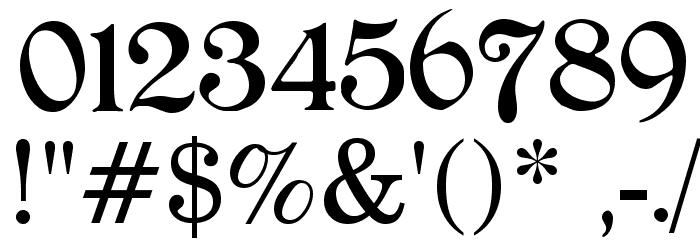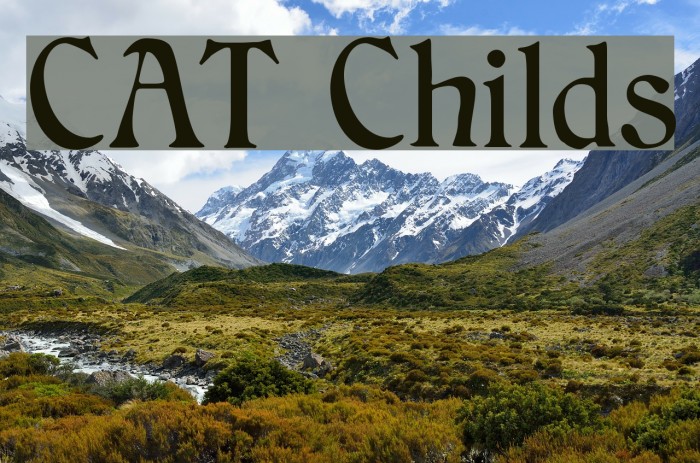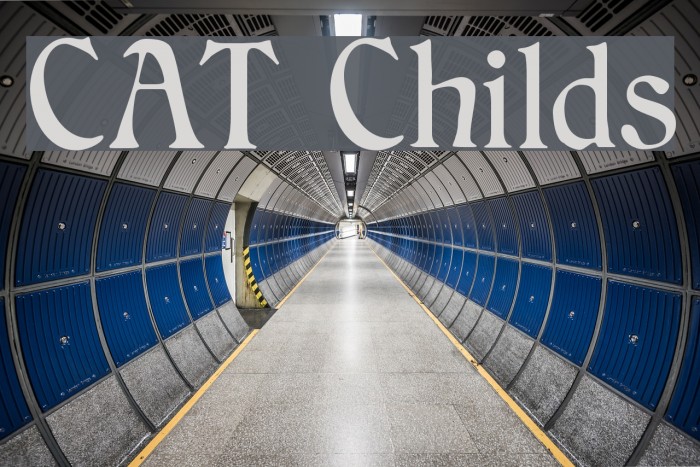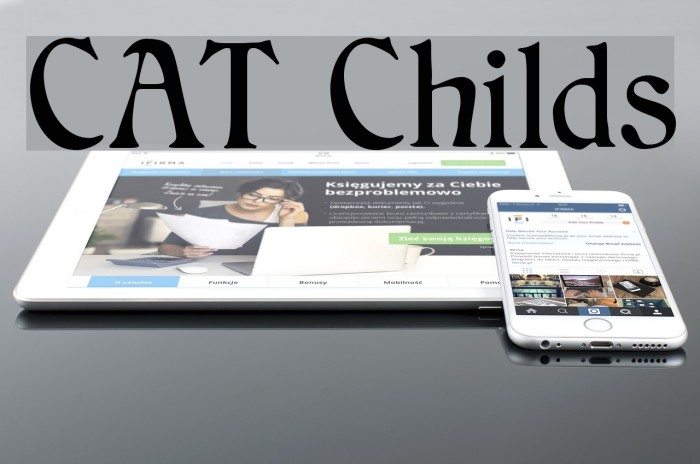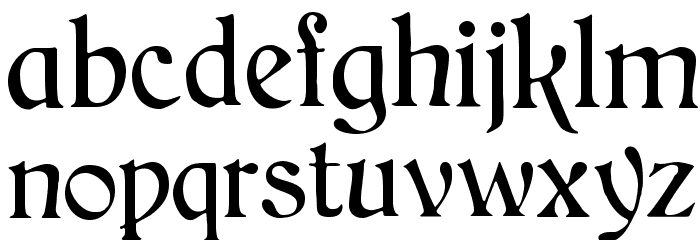
CAT Childs Font
CAT Childs Description
This font features a whimsical and playful design, characterized by its unique and artistic letterforms. The uppercase letters have a distinctive flair with varying stroke widths and decorative elements, such as curls and swirls, adding a touch of elegance and creativity. The lowercase letters maintain a consistent style, with smooth curves and a slightly condensed appearance. The numerals are bold and easy to read, while the special characters are designed to complement the overall aesthetic. This font's artistic style makes it suitable for projects that require a creative and eye-catching typeface.
A whimsical and artistic font with decorative elements and varying stroke widths from Uncategorized fonts.
- Overall Style: Playful, Artistic